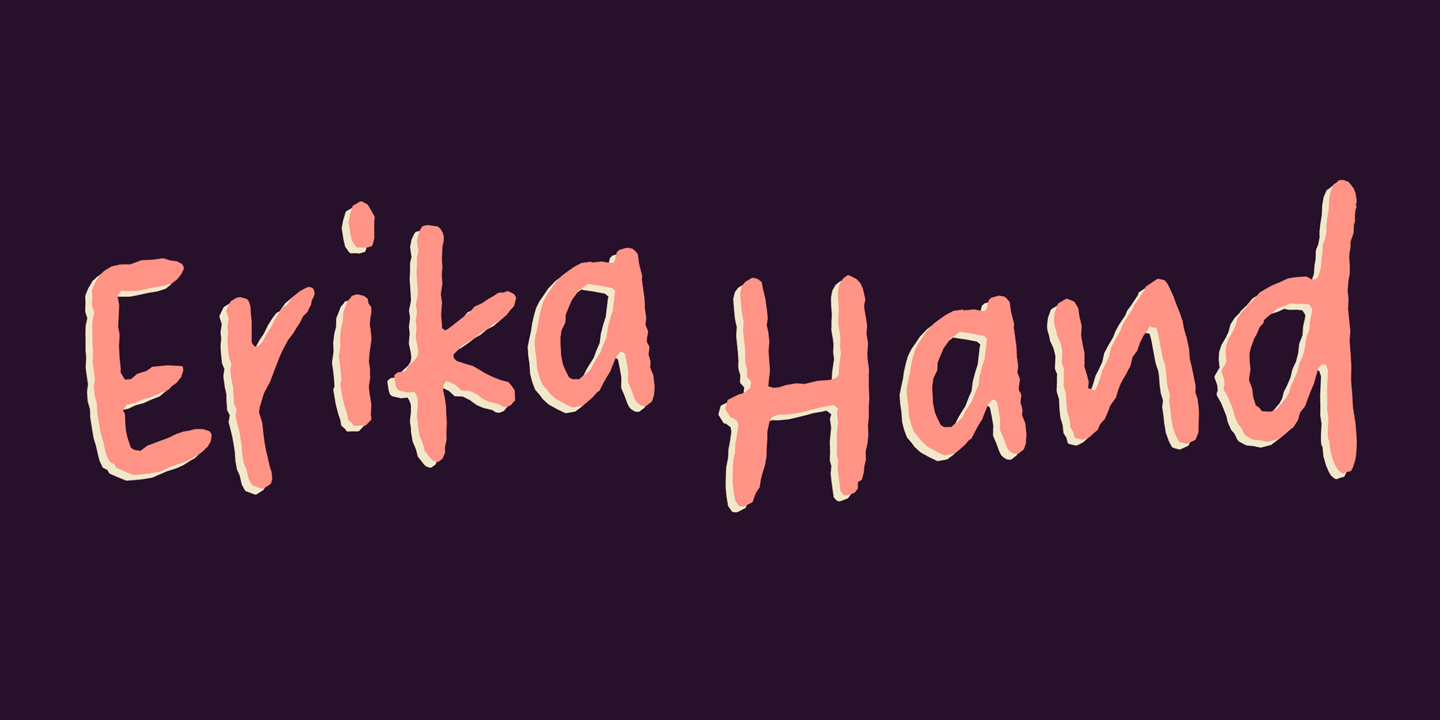
Erika Hand Font is ideal for personal journal designs, handmade craft packaging, intimate wedding invitations, artisanal bakery signage, boutique fashion labels, heartfelt greeting cards, personalized gift wrapping, handwritten letter aesthetics, creative workshop materials, and authentic handmade business branding. This charming typeface excels in applications where personal touch and genuine handwritten character need to be communicated with warm authenticity and human connection that celebrates the beauty of individual expression.
What makes Erika Hand Font exciting is its extraordinary ability to capture the essence of genuine handwriting through its naturally flowing letterforms that preserve the subtle imperfections and personal quirks that make handwritten text so endearing. The font embodies the spirit of personal correspondence and intimate communication with its organic construction and human proportions that suggest the careful attention of someone writing by hand. Its authentically varied character details and personal personality create an atmosphere of genuine warmth that resonates with audiences seeking authentic human connections and handcrafted experiences over digital perfection.
The Erika Hand Font family typically includes Regular weight with natural handwriting variations, often featuring multiple character alternates that simulate realistic handwriting inconsistencies. Some versions offer additional stylistic sets with different writing moods, connecting ligatures that enhance the handwritten flow, and special punctuation marks that maintain the authentic handwritten aesthetic. The family may also include casual and formal variants that reflect different handwriting styles and occasions.
Whether you're creating personal brand identities, handcrafted product packaging, or intimate communication materials, Erika Hand Font Free Download delivers the perfect handwritten authenticity your personal projects deserve. Its genuine handwriting character and human styling make it an invaluable choice for artisans, personal brands, and small businesses working in handmade crafts, personal services, and authentic lifestyle sectors where real human touch and individual personality are essential for establishing meaningful emotional connections with customers who value genuine personal attention.